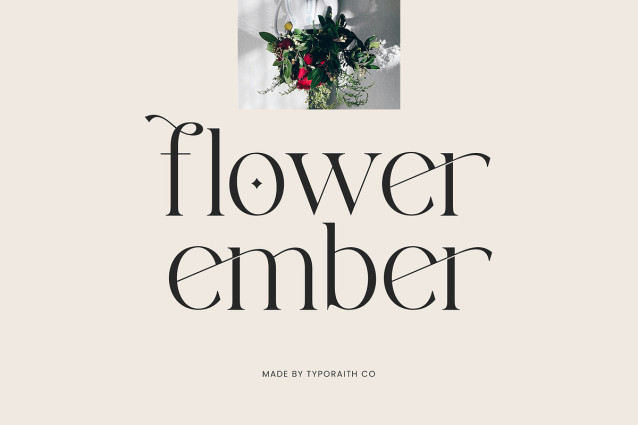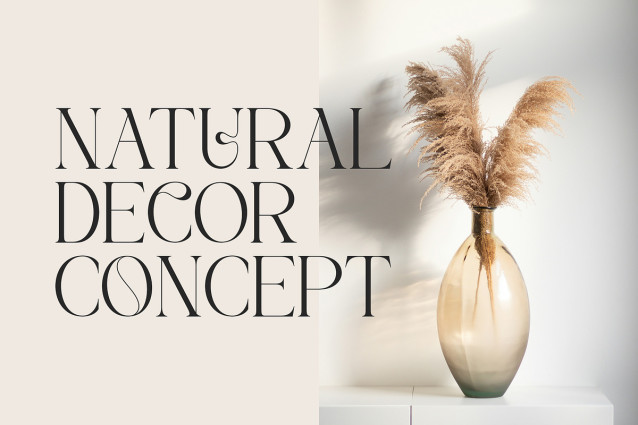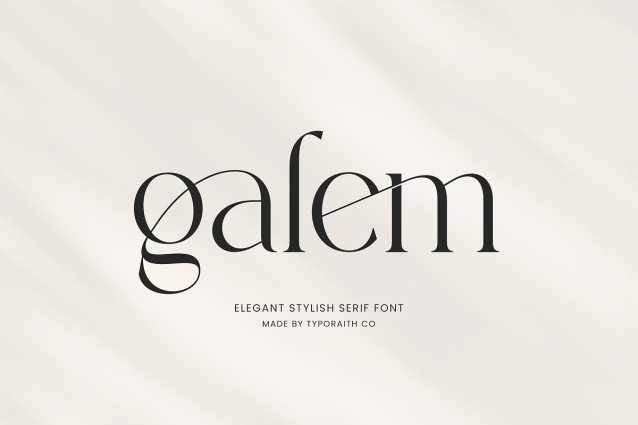
Galem Font
Galem Font is a modern serif font crafted with a touch of elegance and high-end aesthetics. Every curve and detail is designed to deliver a luxurious, refined, and professional look—ideal for premium branding, editorial layouts, logos, wedding invitations, and various creative projects.
With its graceful thin strokes and strong serif structure, Galem brings a timeless yet contemporary character to any design. It also includes beautiful ligatures and alternates that make your typography look more artistic and exclusive